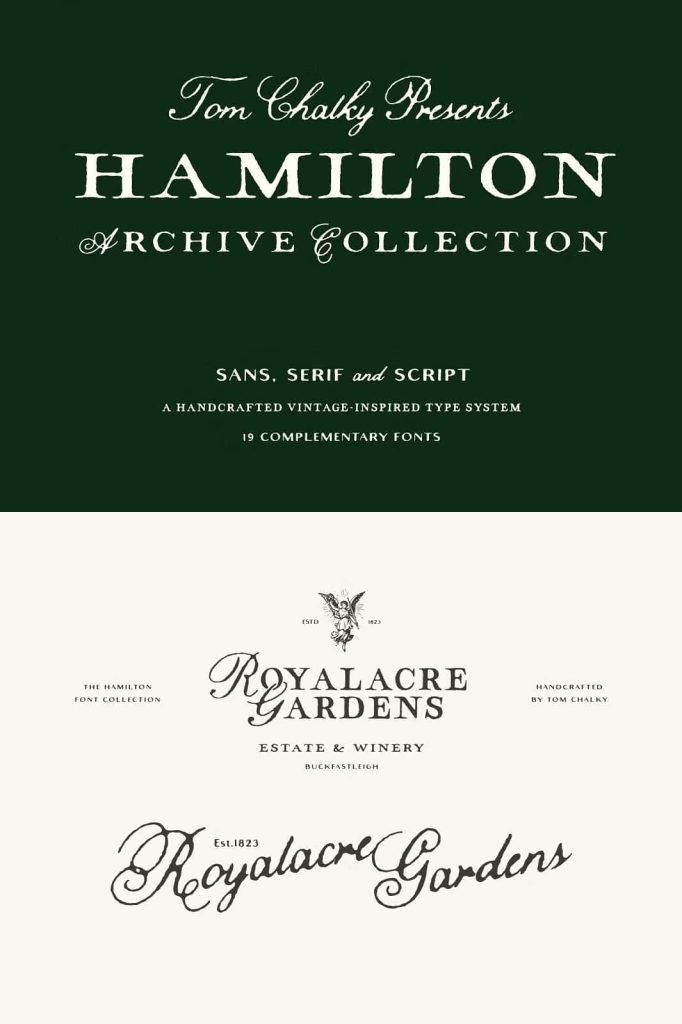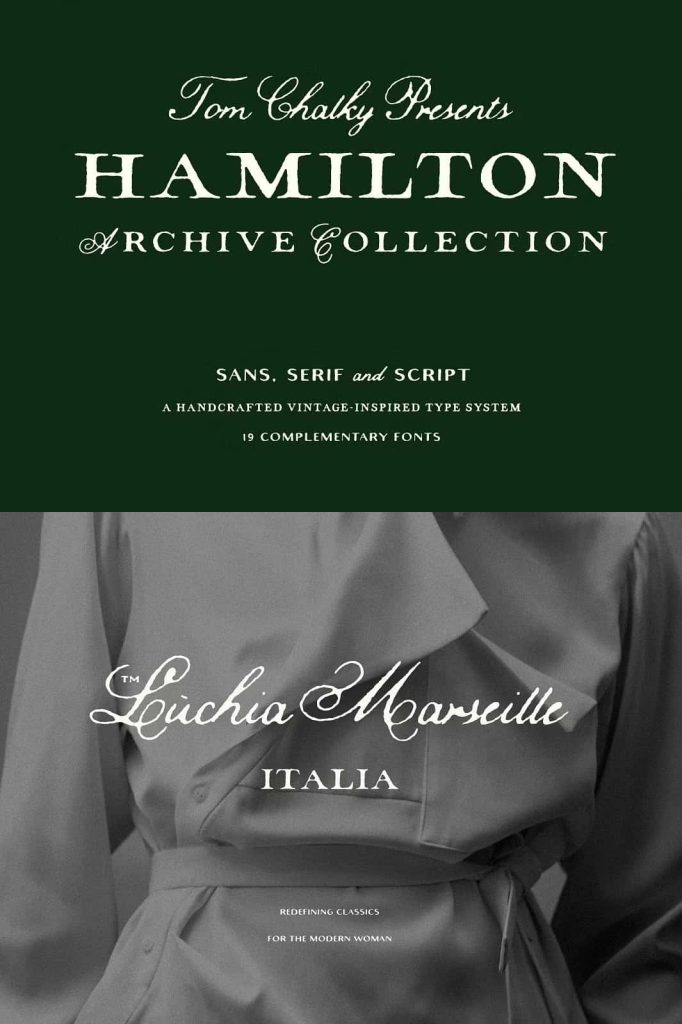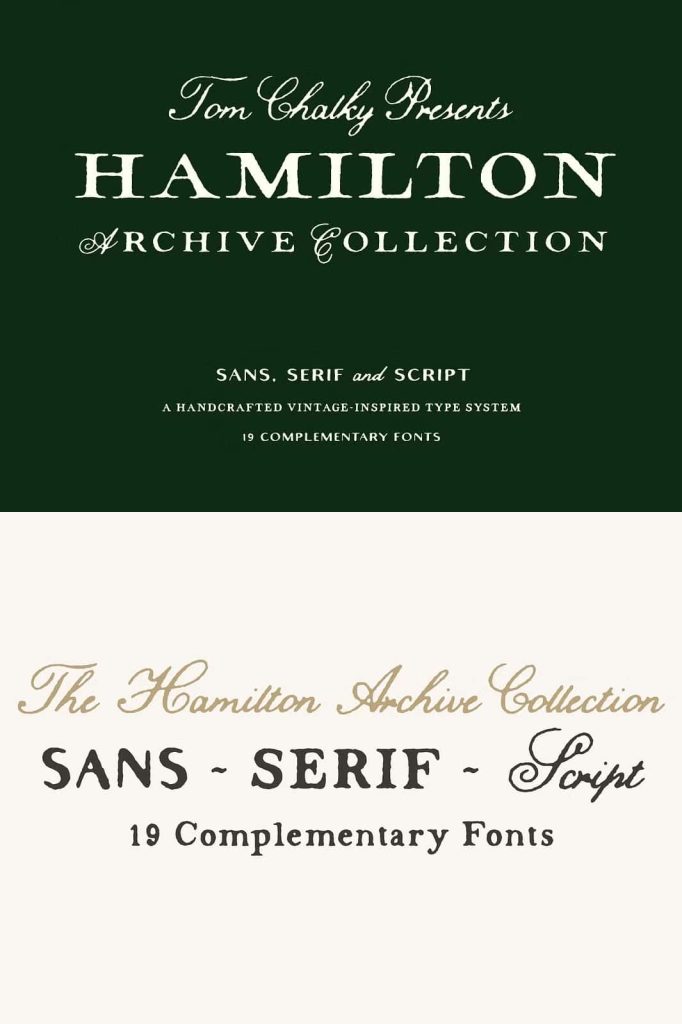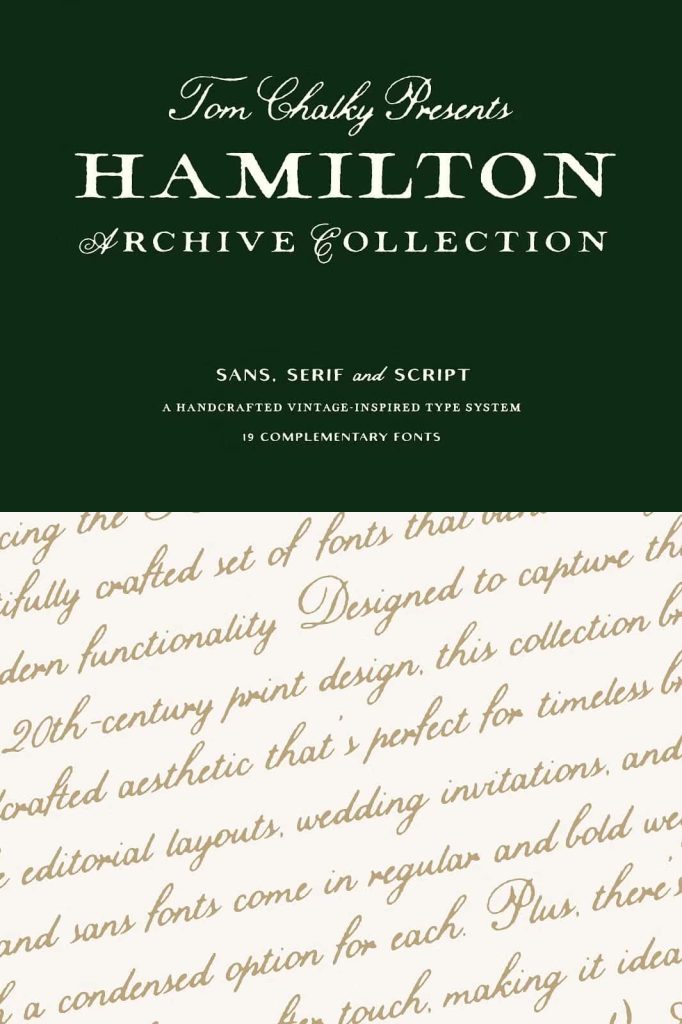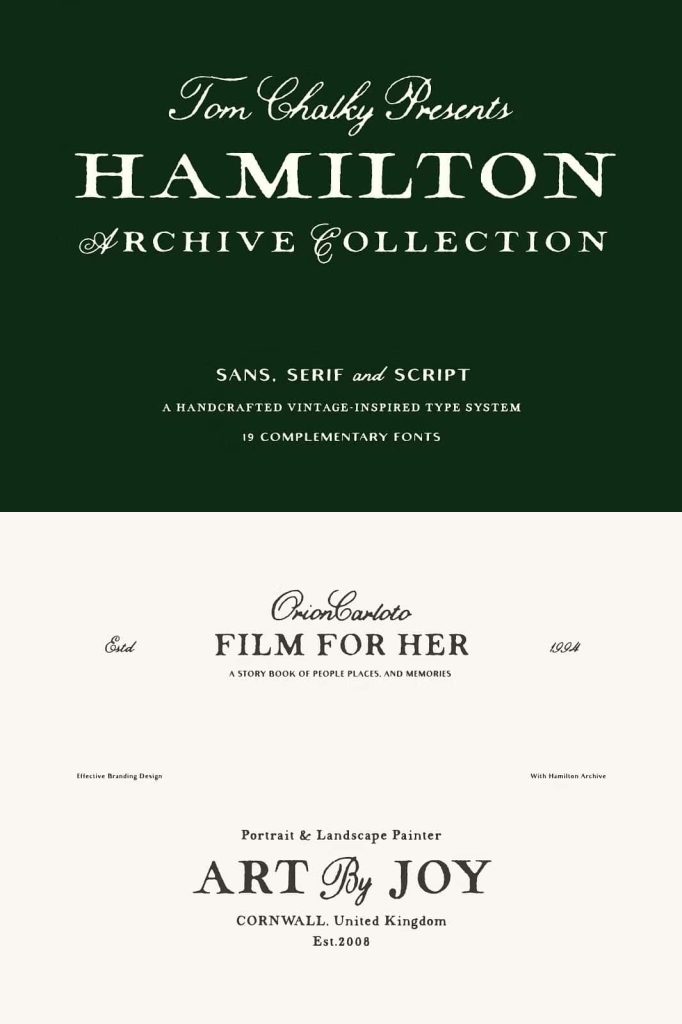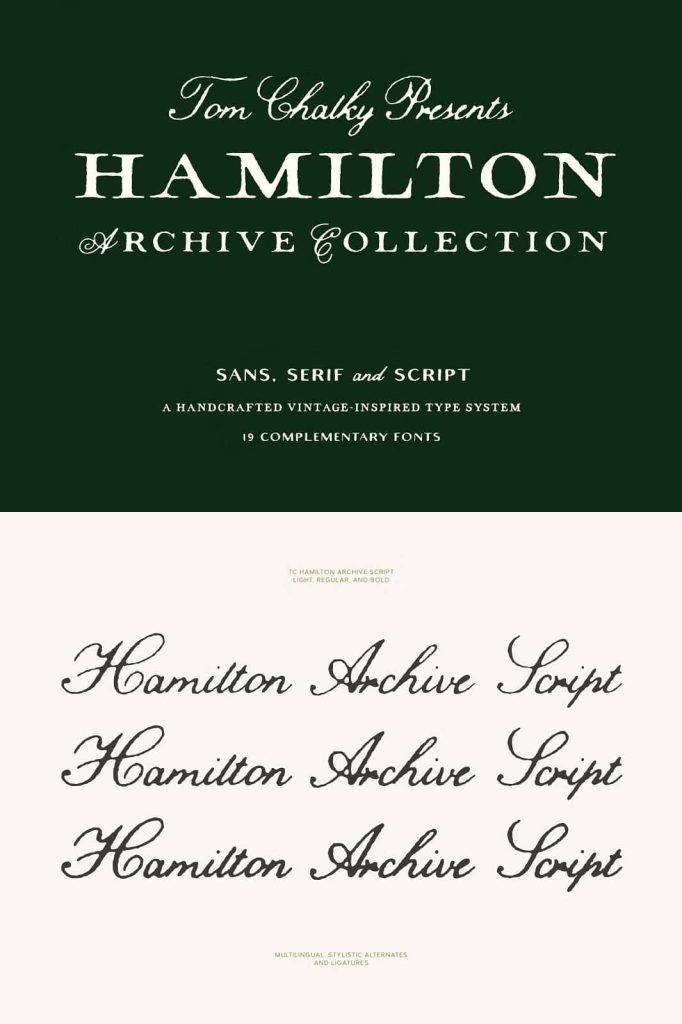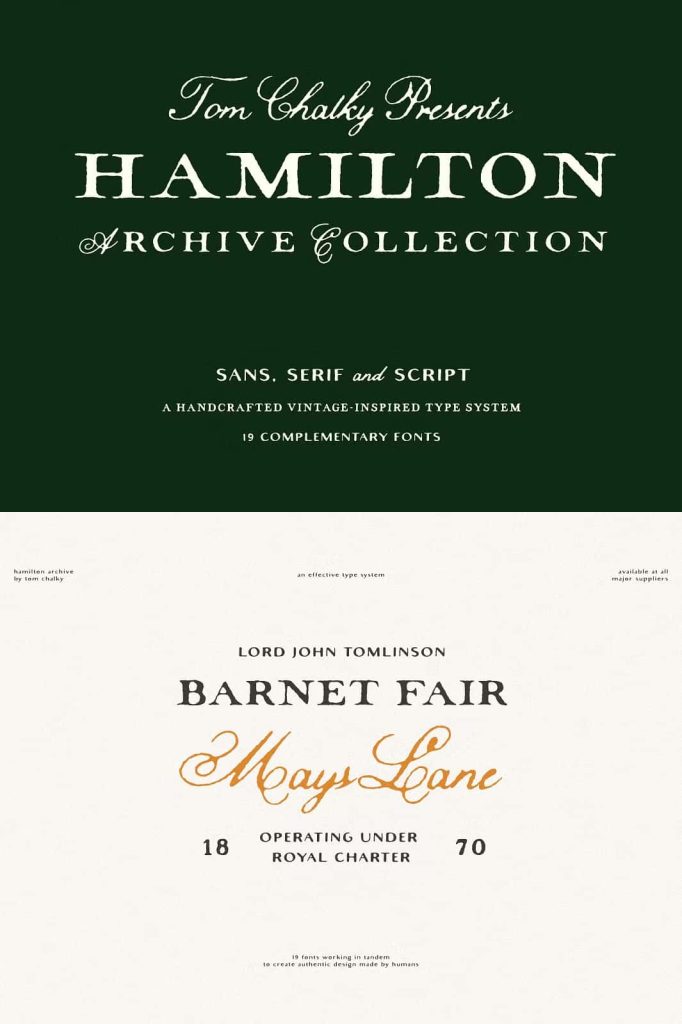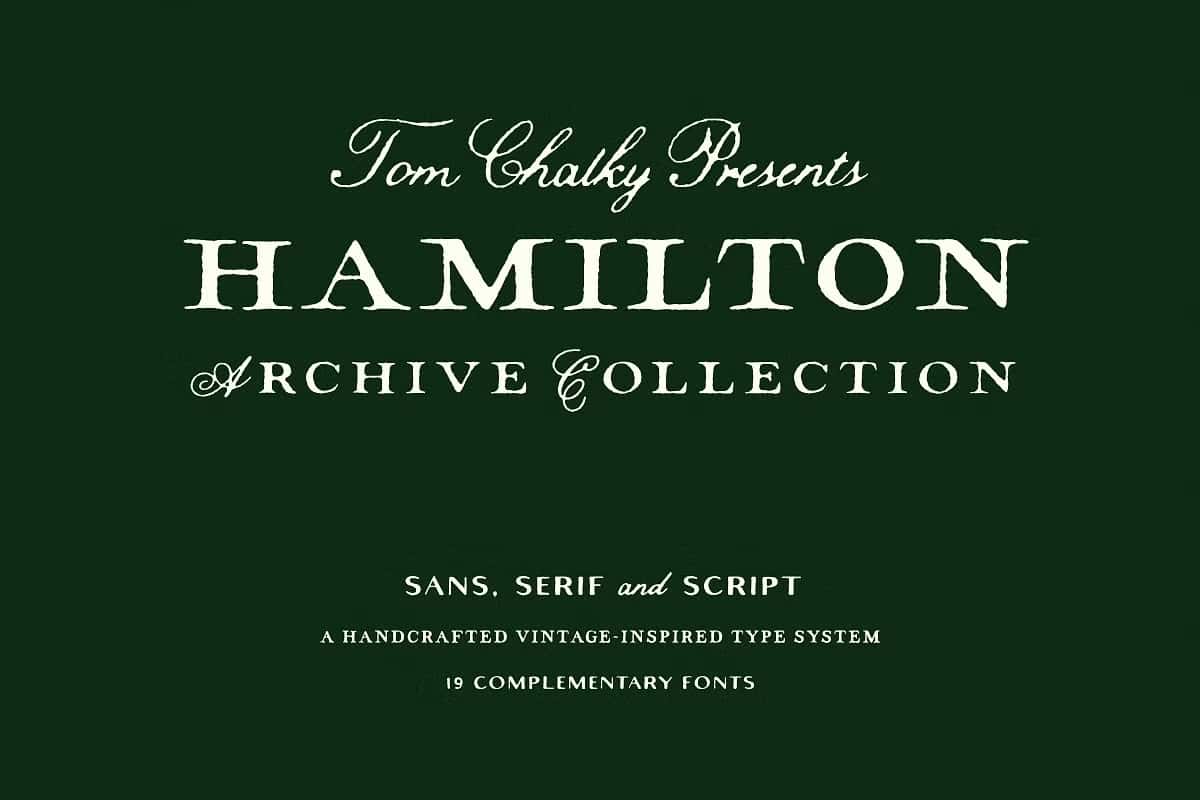
The Hamilton Archive Font Collection: Vintage Character with Modern Design Versatility
The Hamilton Archive Font Collection is a carefully crafted set of typefaces created to bring the timeless beauty of early 20th-century print design into today’s creative world. This collection captures the warmth, detail, and handcrafted quality of vintage typography while delivering the flexibility and performance required for modern design workflows. With its distinctive character and refined execution, the Hamilton Archive Font Collection empowers designers to create work that feels authentic, elegant, and enduring.
Inspired by Early 20th-Century Print Design
At the heart of the Hamilton Archive Font Collection lies a deep appreciation for classic print traditions. The fonts draw inspiration from early 1900s books, newspapers, posters, and stationery, where craftsmanship and attention to detail defined typography. These historical influences appear in the letterforms through subtle imperfections, balanced proportions, and carefully shaped strokes.
Rather than simply replicating old styles, the collection reinterprets vintage aesthetics with a modern perspective. This approach allows designers to achieve a nostalgic look while maintaining clarity, consistency, and usability across both print and digital platforms.
A Handcrafted Aesthetic That Feels Authentic
The Hamilton Archive Font Collection delivers a handcrafted aesthetic that adds warmth and personality to any design. Each font within the collection feels intentional and thoughtfully constructed, echoing the charm of hand-set type and traditional printing techniques. This handcrafted quality helps designs feel more personal, meaningful, and visually rich.
By using these fonts, designers can move away from overly polished or generic typography and embrace a more human and expressive style. The result is text that feels grounded, tactile, and connected to the past while remaining highly functional.
Perfect for Timeless Branding and Identity Design
Branding and Logo Design
The Hamilton Archive Font Collection is an excellent choice for branding and logo design where heritage, trust, and authenticity matter. The vintage-inspired letterforms communicate stability and craftsmanship, making them ideal for boutique brands, artisans, cafés, heritage businesses, and creative studios. These fonts help brands establish a lasting visual identity that feels both classic and relevant.
Editorial Layouts and Print Design
For editorial layouts, magazines, books, and print materials, this font collection offers strong typographic character without sacrificing readability. Designers can use the fonts for headlines, subheadings, pull quotes, and decorative text to create layouts that feel refined and thoughtfully designed. The vintage influence enhances storytelling and adds depth to written content.
Ideal for Weddings and Bespoke Stationery
The Hamilton Archive Font Collection works beautifully for wedding invitations and bespoke stationery projects. Its timeless style enhances save the date cards, invitations, menus, and programs with elegance and charm. The handcrafted feel adds a personal touch that makes special occasions feel meaningful and memorable.
For designers creating custom stationery, the collection provides flexibility and sophistication, allowing each piece to feel unique while maintaining a cohesive visual theme.
Modern Functionality for Today’s Designers
While rooted in vintage design, the Hamilton Archive Font Collection is built for modern use. The fonts are optimized for both print and digital applications, ensuring consistent performance across various formats and sizes. Designers can rely on clean outlines, balanced spacing, and professional construction when integrating these fonts into their projects.
The collection pairs easily with modern sans-serif or minimalist fonts, making it adaptable to a wide range of design systems. This versatility allows designers to blend classic and contemporary elements seamlessly.
Why Choose the Hamilton Archive Font Collection
Choosing the Hamilton Archive Font Collection means investing in typography that celebrates history while supporting modern creativity. Its vintage charm, handcrafted aesthetic, and reliable functionality make it a powerful tool for designers who value quality and timeless style.
If you are looking for a font collection that brings early 20th-century print design into modern creative projects, the Hamilton Archive Font Collection offers a refined and versatile solution that elevates branding, editorial layouts, wedding stationery, and bespoke design work with lasting character.